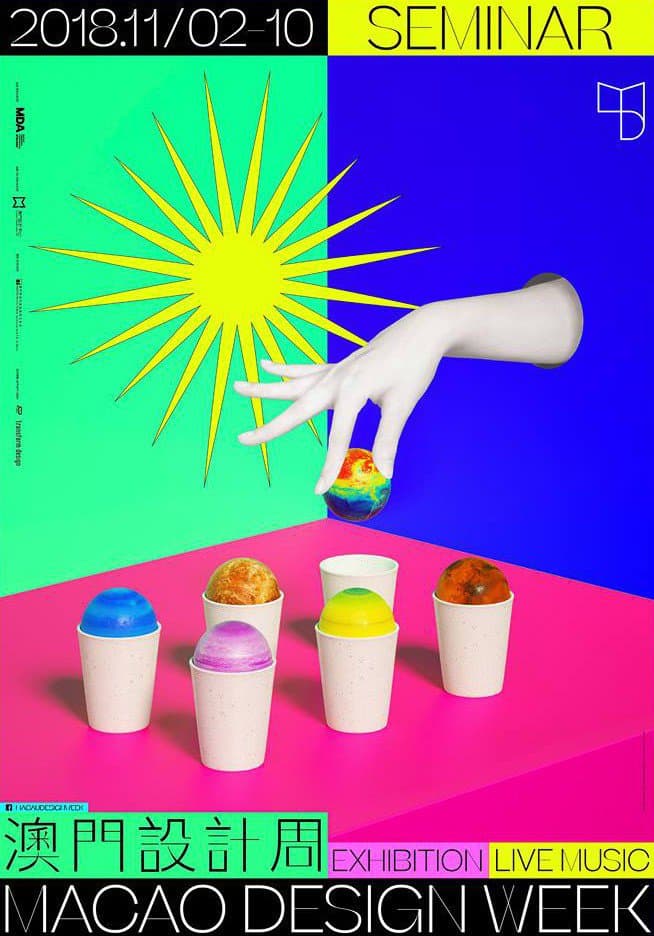
Macao Design Week & Beatrice Display
The Macao Design Week is an annual event for design lovers to exchange their views. Each year they rebrand the event, and in 2018 untitled studio studio paired Beatrice Display with bright, bold colors and illustrations. The designers even took it a step further, creating their own high-contrast Hanzi to pair with Beatrice Display. Congratulations to the designers for winning a Bronze in the Visual Identity System category at HKDA Global Design Awards in 2019.
The Macao Design Week is an annual event for design lovers to exchange their views. Each year they rebrand the event, and in 2018 untitled studio studio paired Beatrice Display with bright, bold colors and illustrations. The designers even took it a step further, creating their own high-contrast Hanzi to pair with Beatrice Display. Congratulations to the designers for winning a Bronze in the Visual Identity System category at HKDA Global Design Awards in 2019.
Client: Macao Design Week
Designers: untitled macao, Au Choh Hin, Kiko Lam, Steven Wu, CLIFFS STUDIO Ben Cheong
Typeface:  Beatrice Display